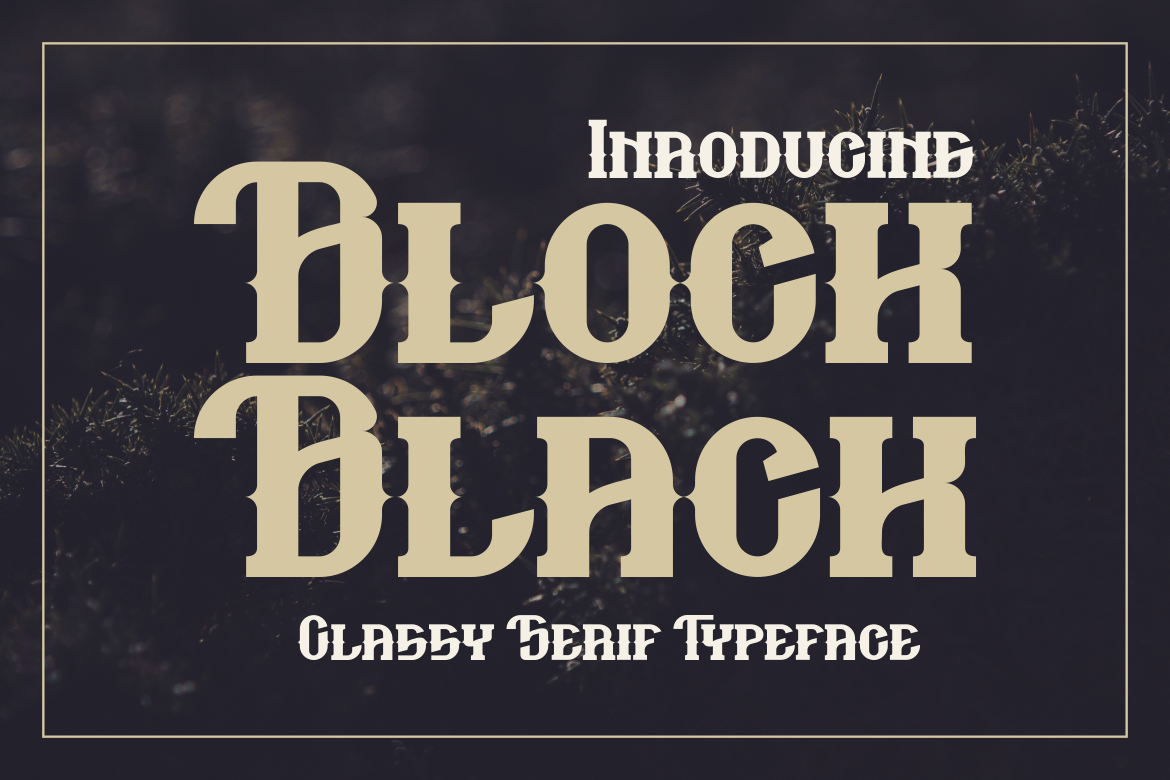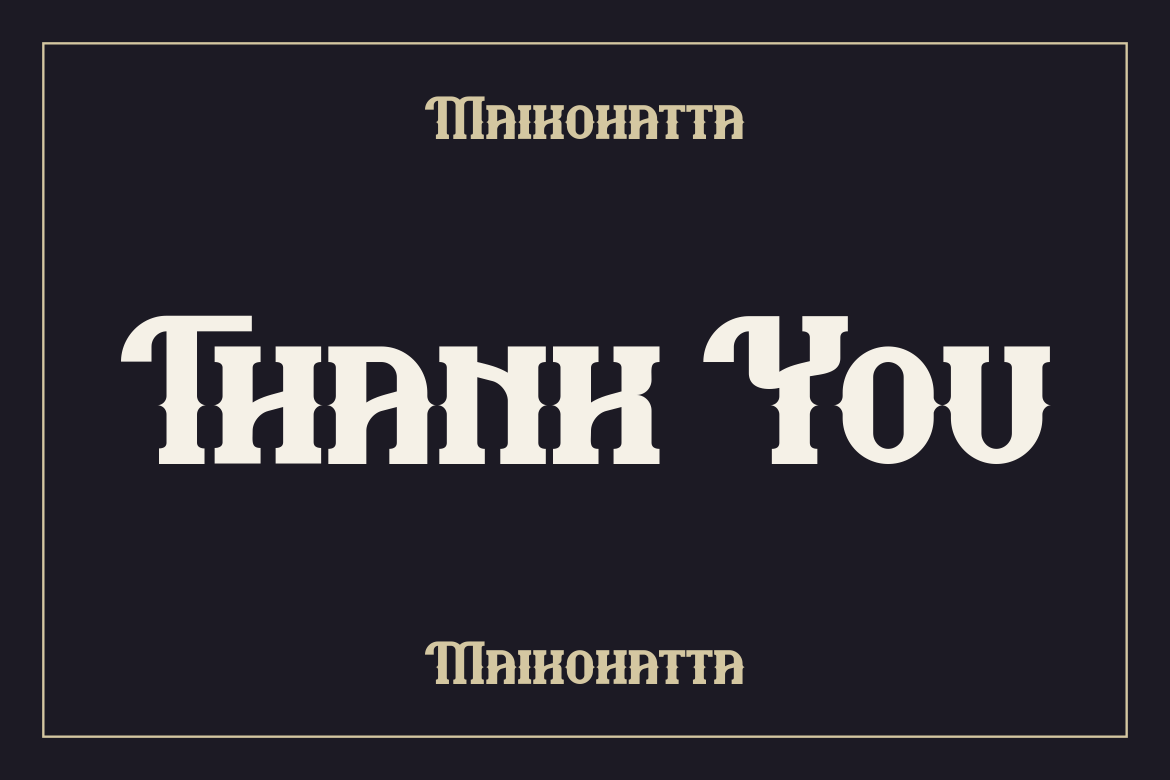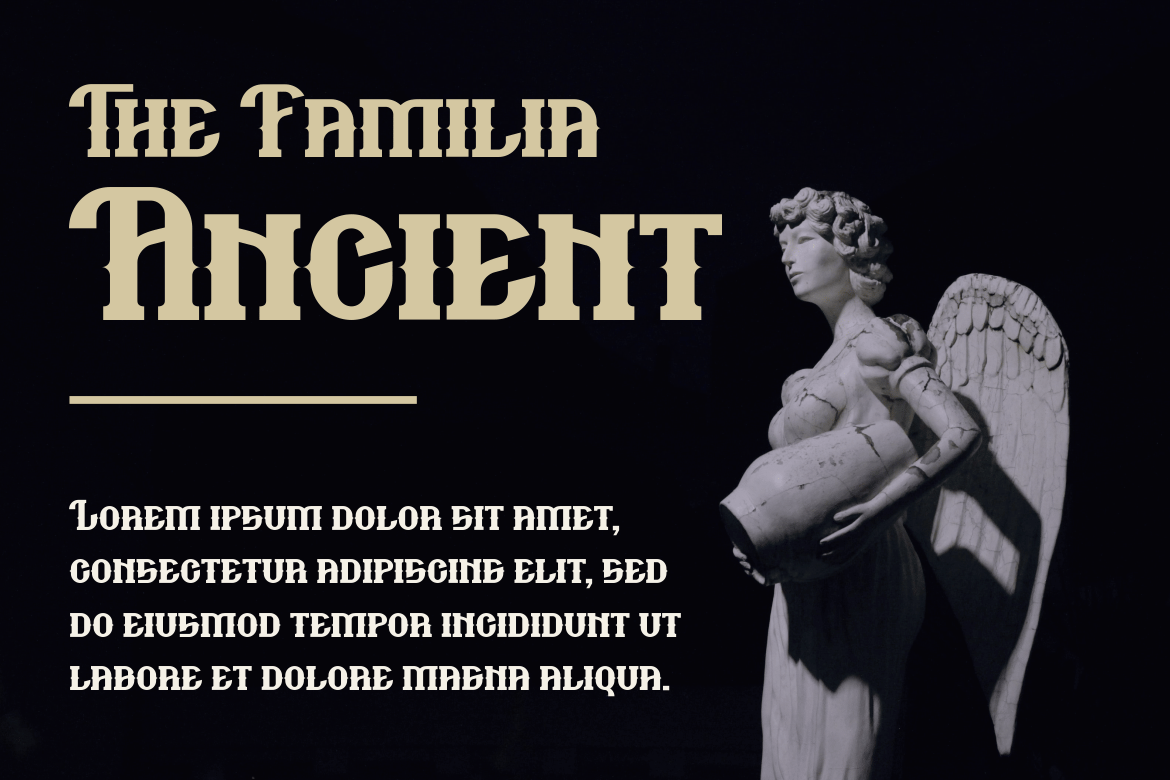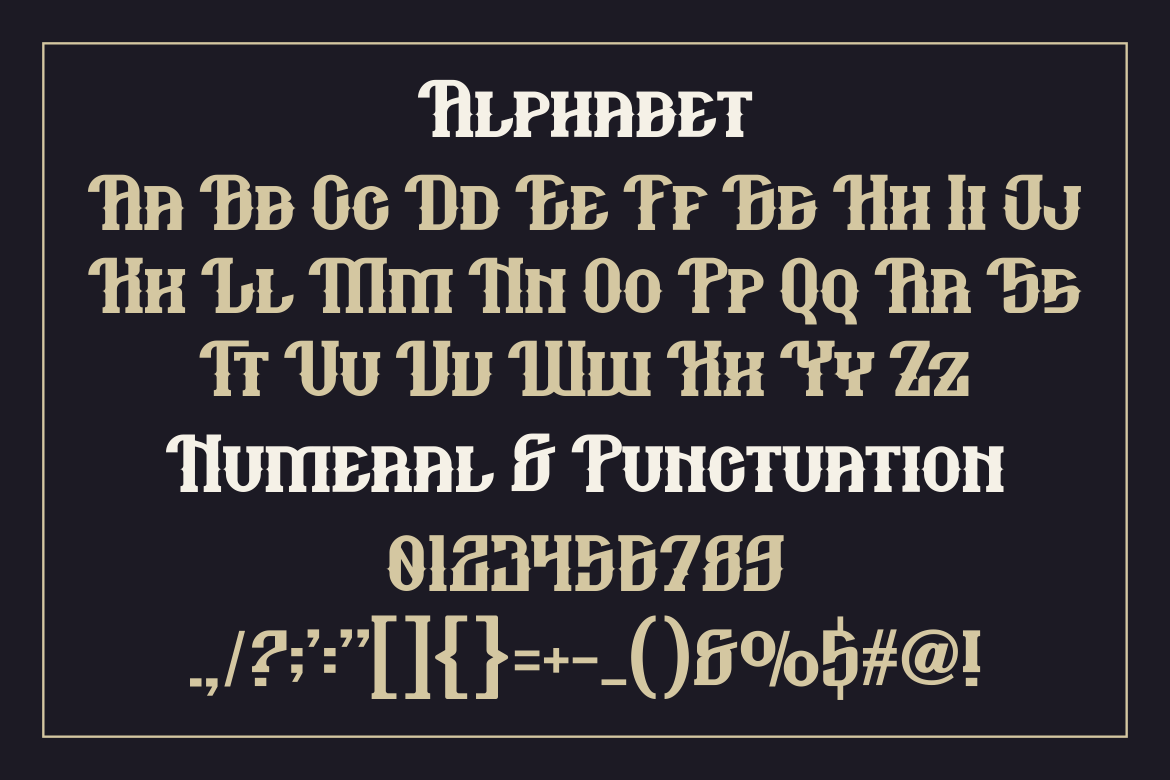
Block Black Font
Introducing our new product Block Black Font – Modern Font
Block Black Font – Modern Font is a bold and authentic display font. The font is suitable for any branding project like logo, t-shirt printing, esport, and many more. outstanding in a wide range of contexts.